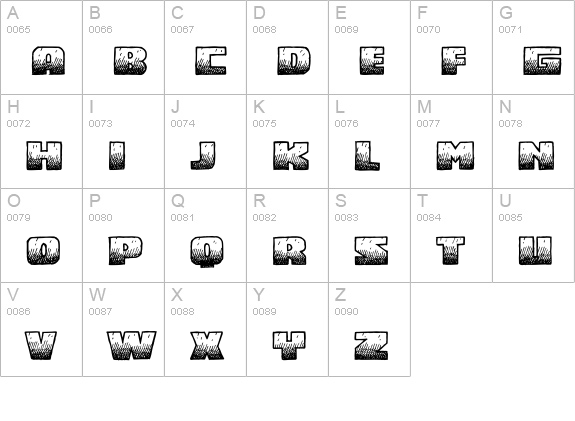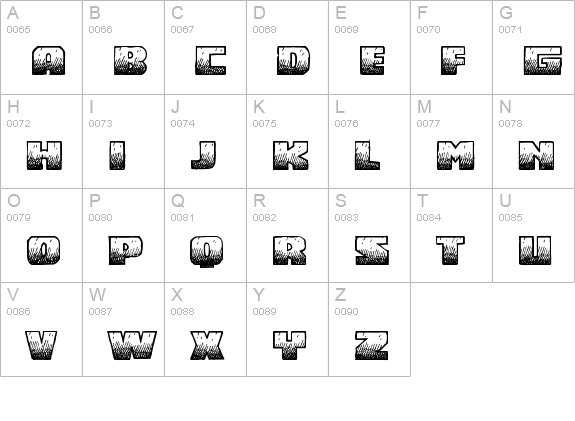
MidnightSnack BB Font Details
MidnightSnack BB font is a whimsical and playful typeface that adds a touch of charm to any design project. With its rounded edges and quirky letterforms, this font is perfect for creating eye-catching headlines, posters, and social media graphics. Whether you're working on a project for a bakery, cafe, or any other creative endeavor, MidnightSnack BB font is sure to grab attention and leave a lasting impression. The best part? MidnightSnack BB font is free to download at FontsMarket.com. Simply head over to the website and start using this delightful font in your designs today. Don't miss out on the opportunity to add a dash of fun and personality to your projects with MidnightSnack BB font!